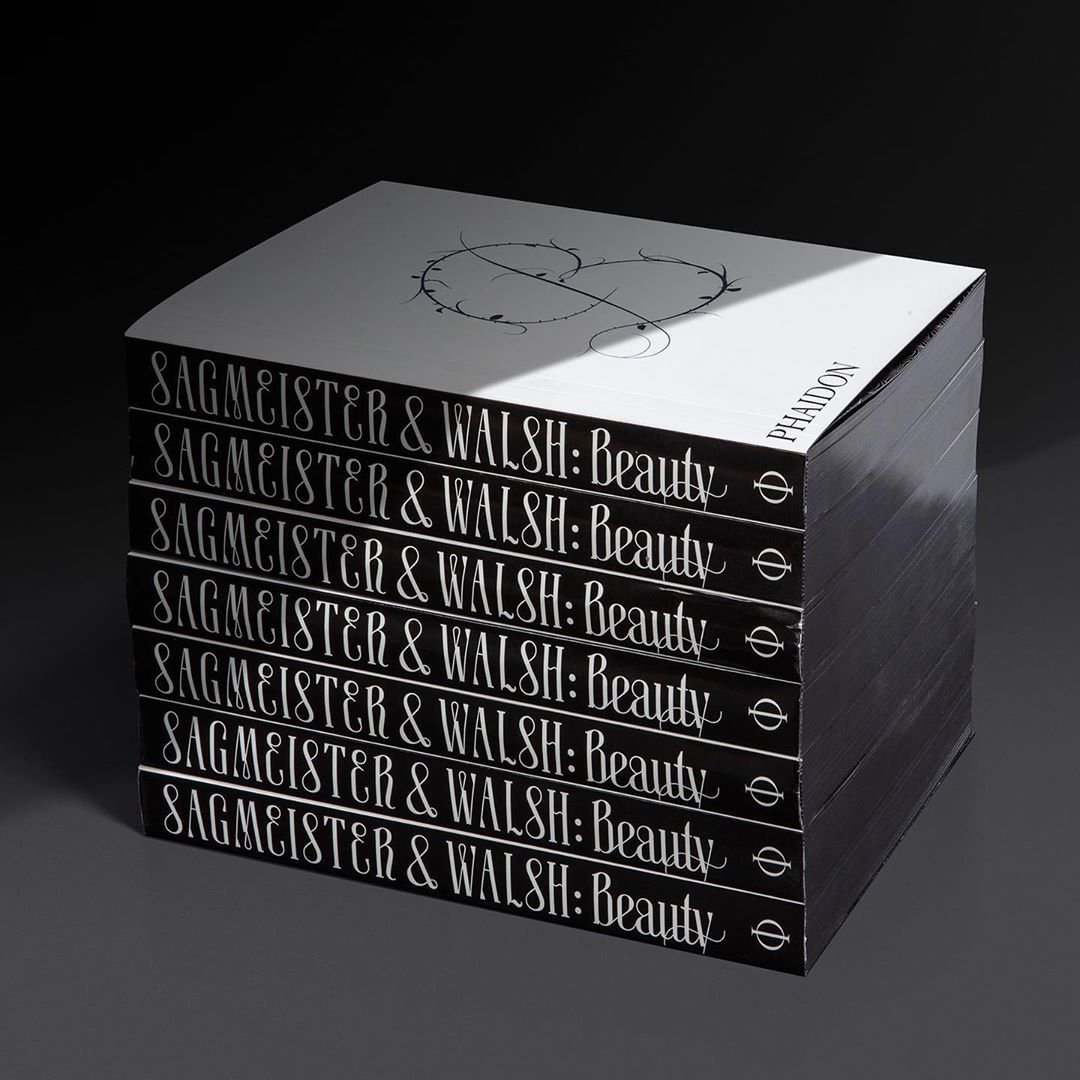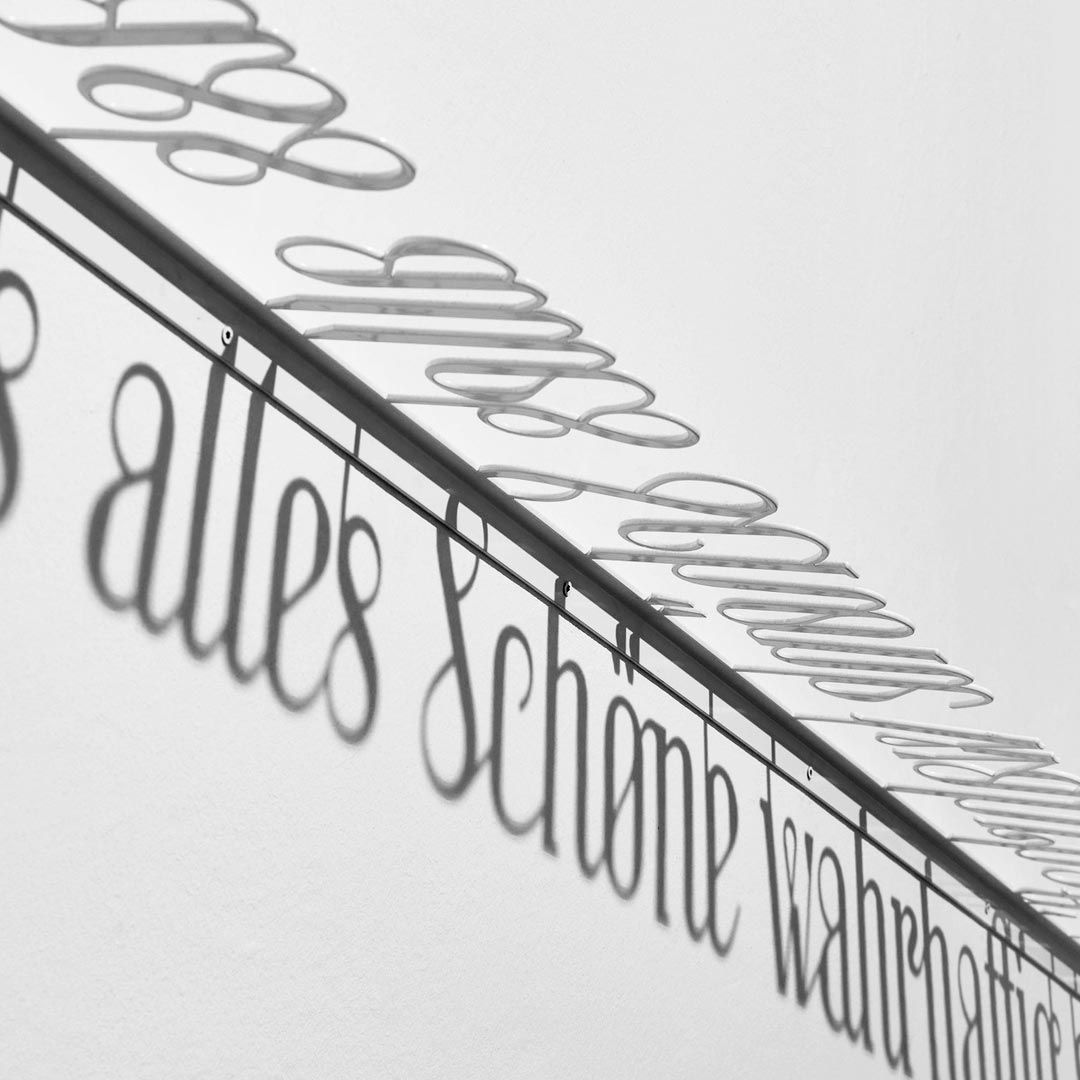
Beauty
Custom typeface for Beauty — a multimedia exhibition by Sagmeister & Walsh, US first shown at the MAK in Vienna in 2018.
| Client: | Sagmeister & Walsh, US |
| Art Direction: | Daniel Brokstad |